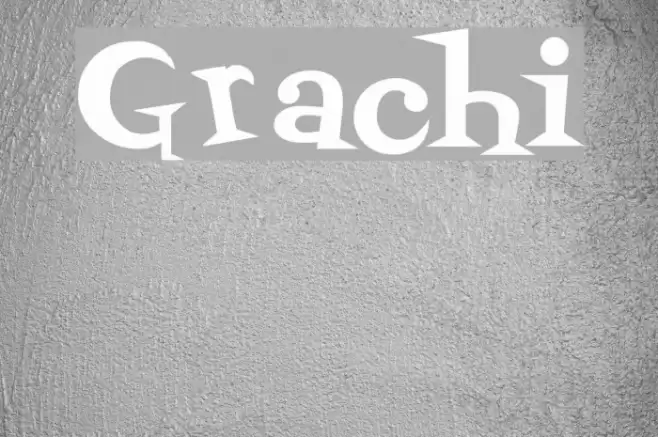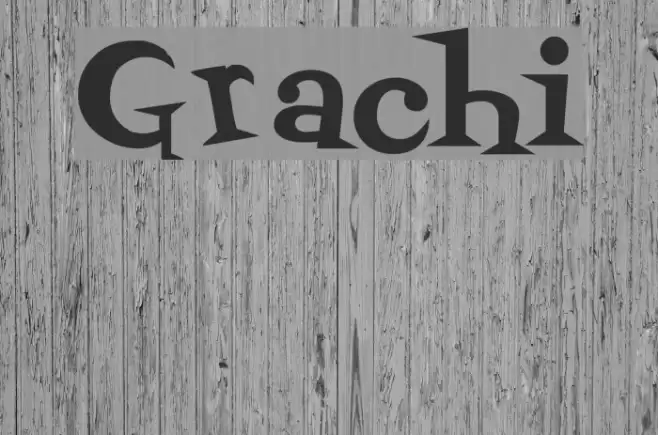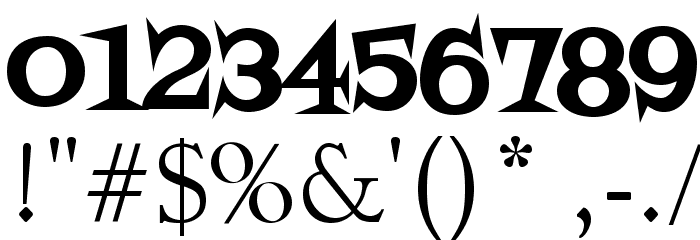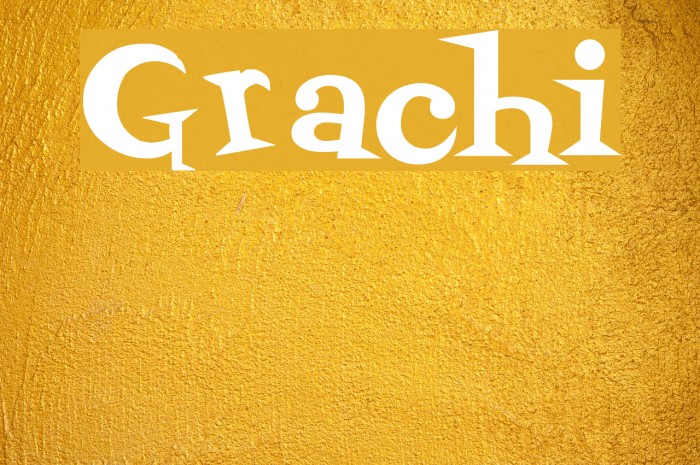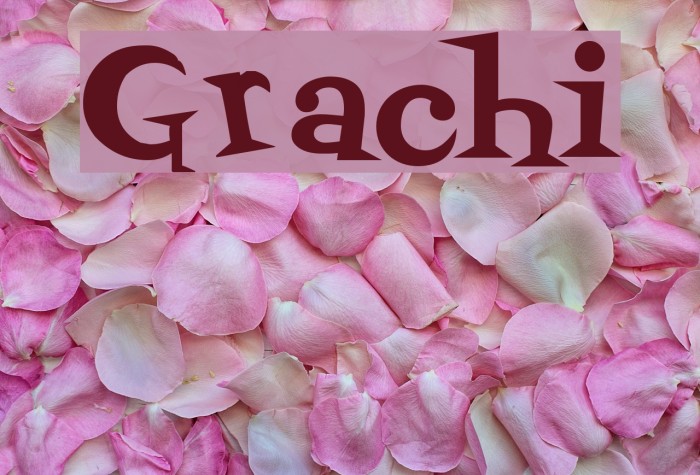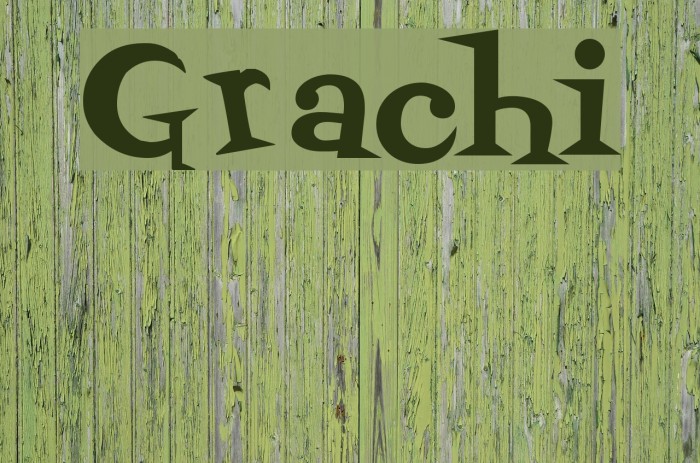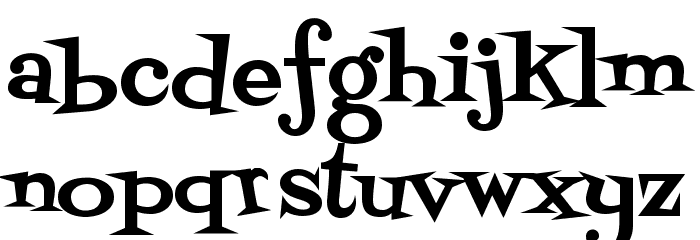
Grachi Font
Grachi Description
This font is a bold and dynamic display typeface characterized by its sharp, angular serifs and dramatic flair. The uppercase letters exhibit a strong presence with exaggerated serifs that give a sense of movement and energy. The lowercase letters maintain a consistent style, with rounded forms that contrast with the angular serifs, creating a unique visual rhythm. The numerals are equally bold, with a playful yet assertive style that complements the overall design. Special characters are crafted with the same attention to detail, ensuring a cohesive look across all glyphs.
A bold, dynamic serif display font with sharp, angular serifs and a dramatic flair from Uncategorized fonts.
- Proposed Projects: Ideal for projects that require a strong visual impact, such as posters, logos, book covers, and branding materials.